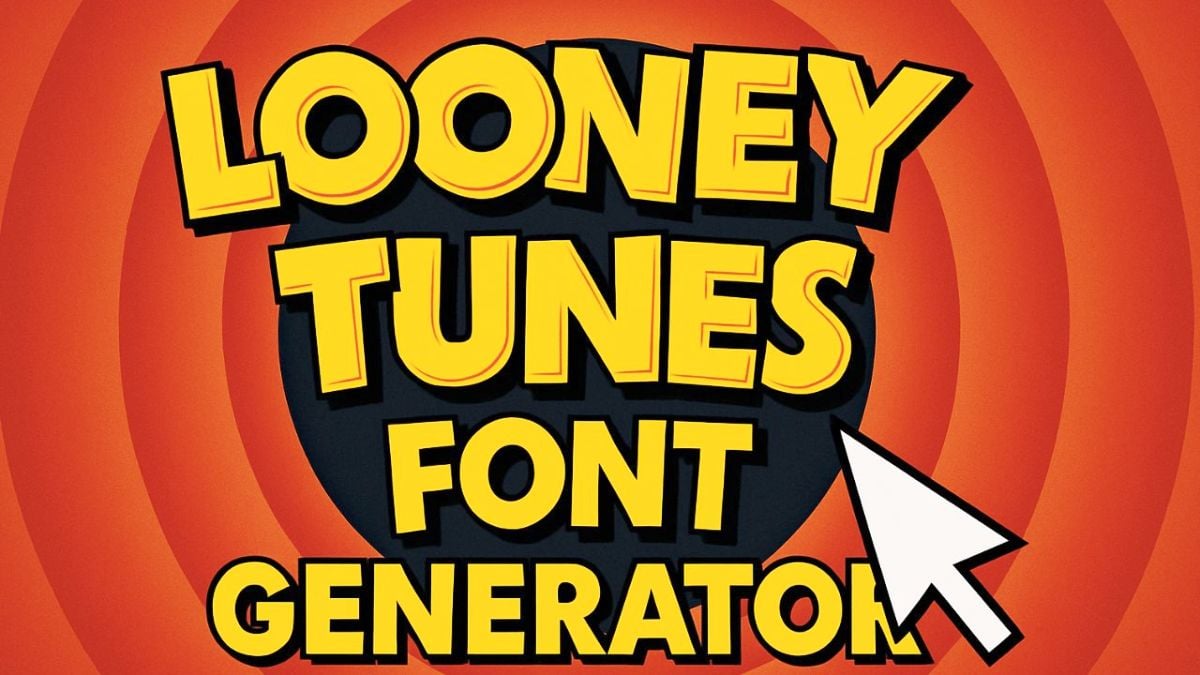
🐰 Looney Tunes Font Generator 🐰
🎭 Create amazing cartoon text with fun fonts, colorful effects, and Looney Tunes magic! Perfect for kids content, cartoons, and playful designs! 🌈
Looney Tunes Font Generator (Free Font Download)
Create bold, ring‑centric cartoon headlines inspired by classic Looney Tunes title cards. Preview your text in the generator, then download the matching font pack for Photoshop, Canva, Premiere Pro, and more.
Why Designers Love the Looney Tunes Look
- Iconic circular energy: concentric rings and bright gradients for instant retro impact.
- Big, friendly letterforms: thick strokes and rounded curves optimized for titles and logos.
- Vibrant palettes: sunny yellows, oranges, and reds that pop on dark or light backgrounds.
How to Use the Looney Tunes Font Generator
- Type your title and select a bold, cartoon display variant.
- Tune size, tracking (letter spacing), and line height for balance.
- Experiment with ring‑style backgrounds, warm gradients, and soft drop shadows.
Font Pairing Ideas for Cartoon Titles
- Main title (Display) + Sans subtitle: Pair with Montserrat, Poppins, or Futura‑like geometries.
- Retro warmth: Use Cooper Black or Baloo for playful subheads.
- Minimal body text: Keep paragraphs in Inter, Open Sans, or Lato for clarity.
Design Tips for the Classic Ring Aesthetic
- Contrast first: Bright yellow/orange titles on deep navy or charcoal for cinematic punch.
- Concentric focus: Use circle/ring motifs behind the title to echo classic title cards.
- Soft shadows: A subtle outer glow or drop shadow adds dimension without muddying edges.
- Spacing: Slight positive tracking often increases legibility at large sizes.
- Keep it clean: Bold caps for the title, simpler fonts for supporting copy.